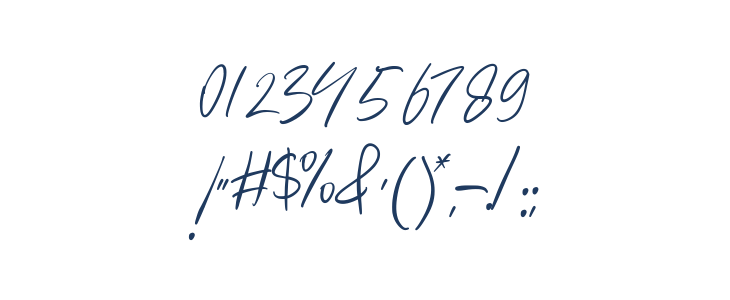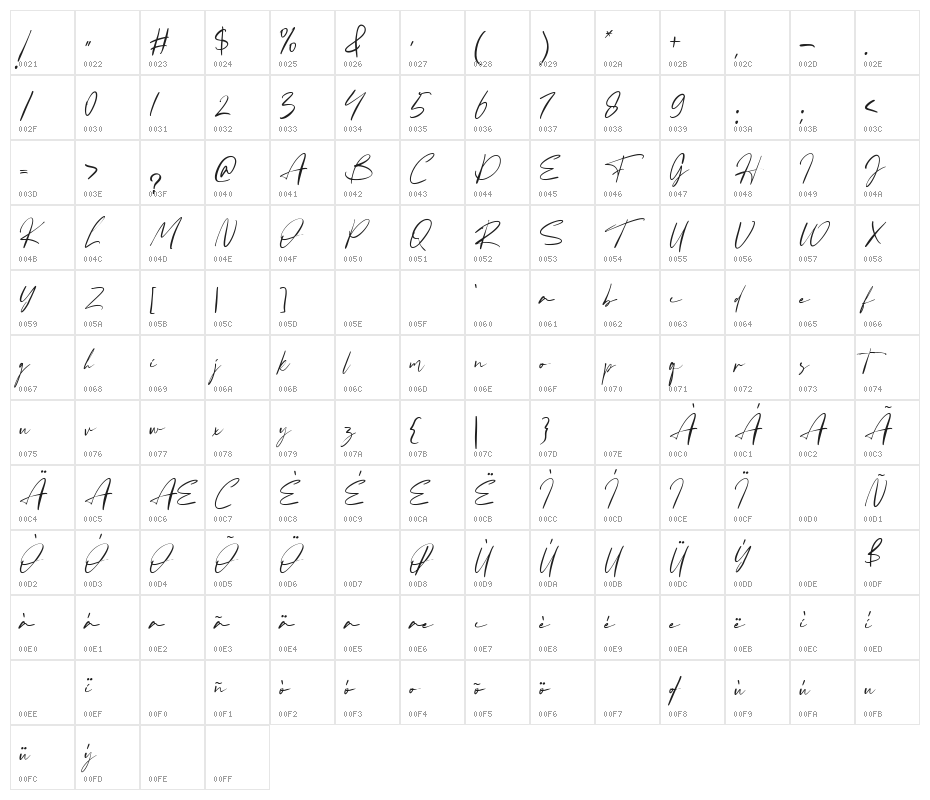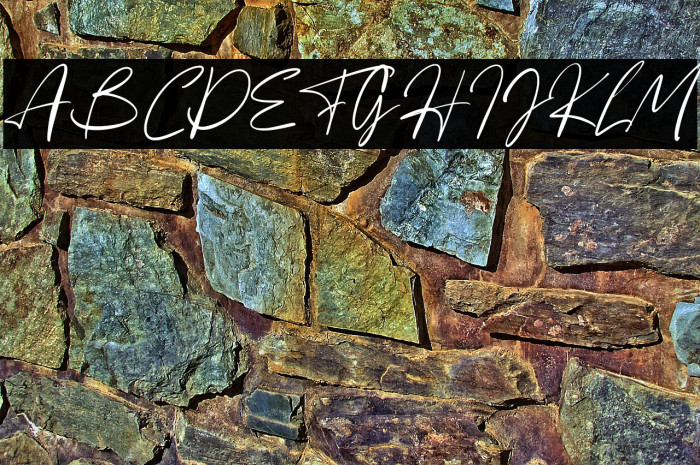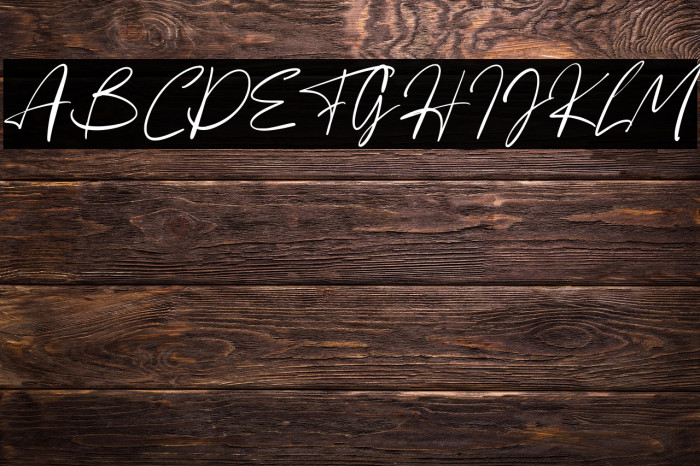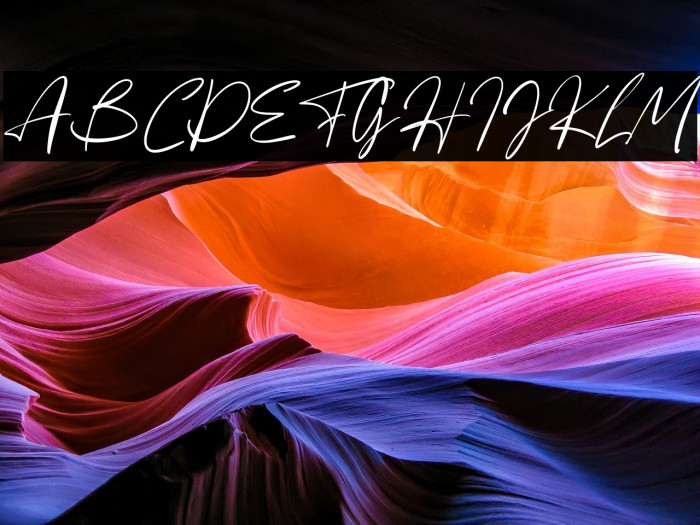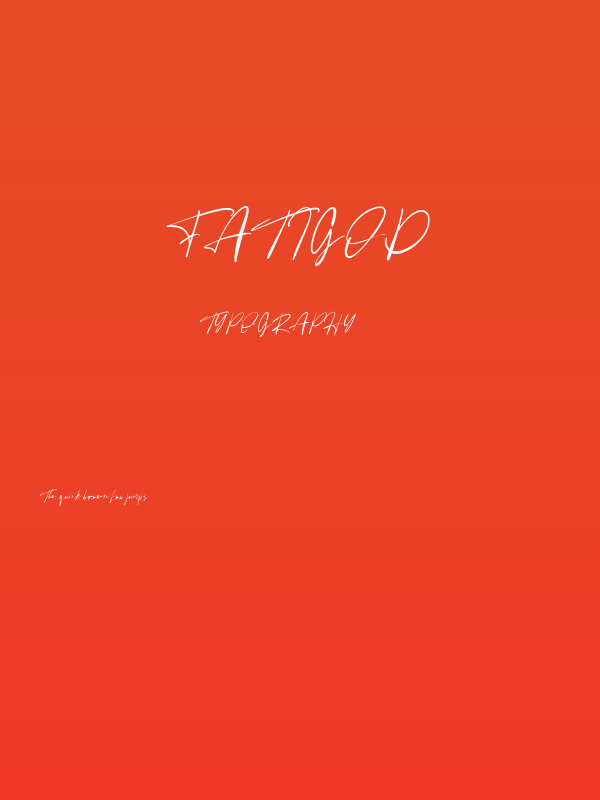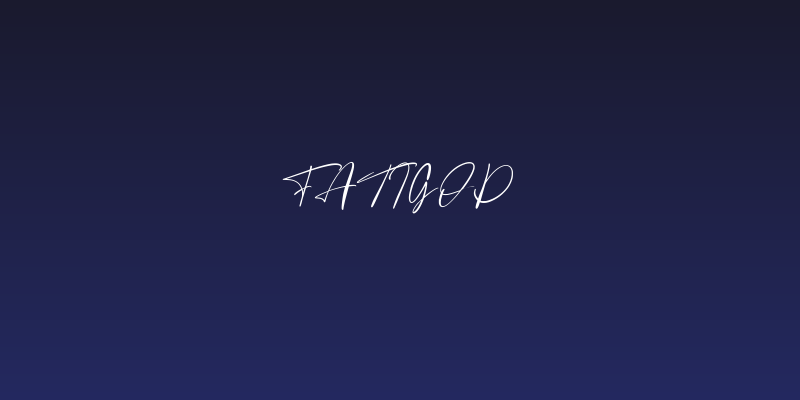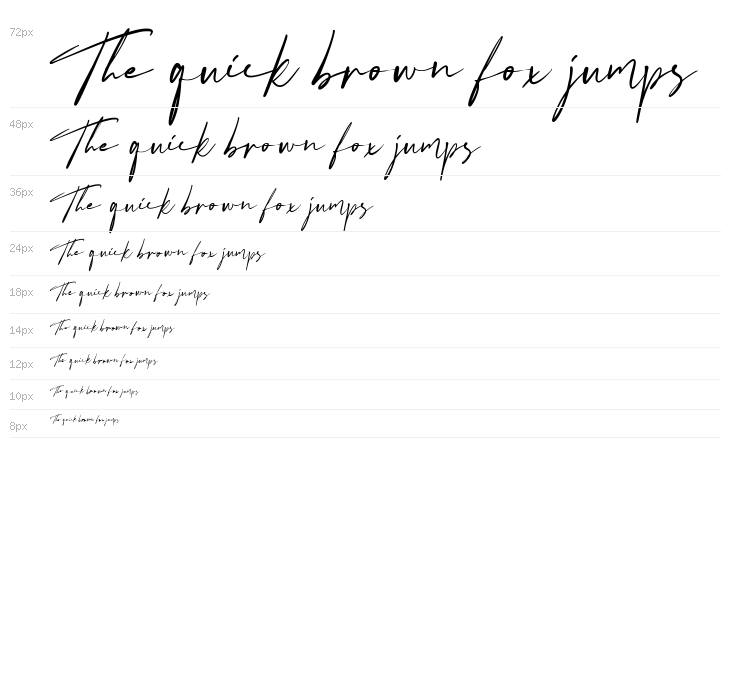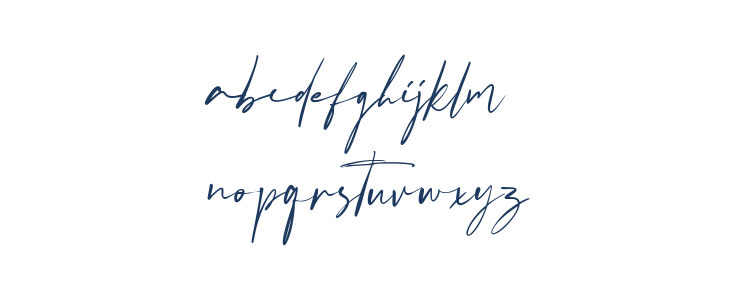
Fatigod Font
Fatigod Description
This font exudes a dynamic and expressive style, characterized by its fluid, cursive script that mimics the natural flow of handwriting. The letters are elegantly elongated with a slight slant, giving them a sense of movement and grace. The strokes vary in thickness, adding a lively contrast that enhances readability while maintaining an artistic flair. The uppercase letters are bold and striking, while the lowercase letters are more delicate, creating a harmonious balance. The numerals and special characters are consistent with the overall style, ensuring a cohesive look across all text elements.